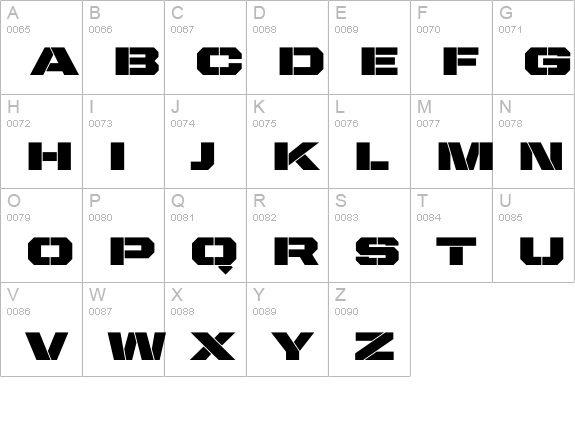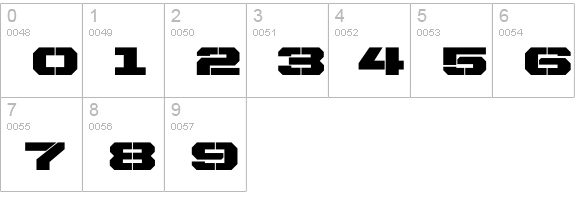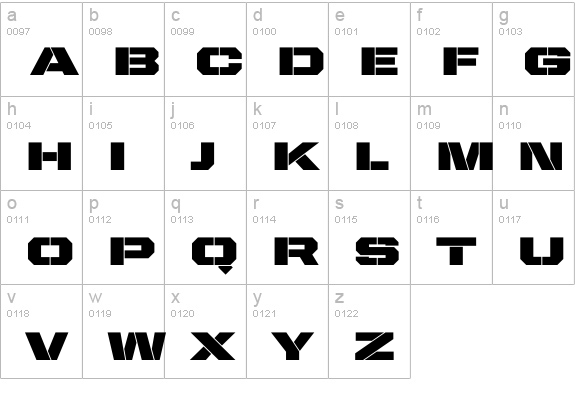
United Sans Ext Stencil Font Details
United Sans Ext Stencil is a captivating and versatile font that effortlessly blends contemporary design with a touch of classic elegance. This font is the perfect choice for those seeking to add a sense of modernity and sophistication to their designs, while still maintaining a bold and striking appearance. Featuring clean lines and sharp angles, United Sans Ext Stencil exudes confidence and professionalism. Its unique stencil design adds an element of intrigue and uniqueness to any project, making it stand out from the crowd. Whether used for headings, titles, or logos, this font commands attention and leaves a lasting impression. But what sets United Sans Ext Stencil apart from other fonts is its accessibility. It is not only visually stunning but also freely available to download at FontsMarket.com. This means that anyone can take advantage of its exceptional design and incorporate it into their creative endeavors without any cost. With its extensive character set and multiple weights, United Sans Ext Stencil offers endless possibilities for designers and typographers alike. Its versatility allows it to adapt to any project, from print to digital, ensuring a consistent and cohesive visual aesthetic. Whether you're working on a magazine layout, branding materials, or a website design, United Sans Ext Stencil is the ideal font to convey a sense of modernity, professionalism, and creativity. So why wait? Discover the beauty of United Sans Ext Stencil today and elevate your designs to new heights. Download it for free at FontsMarket.com and experience the power of this remarkable font firsthand.